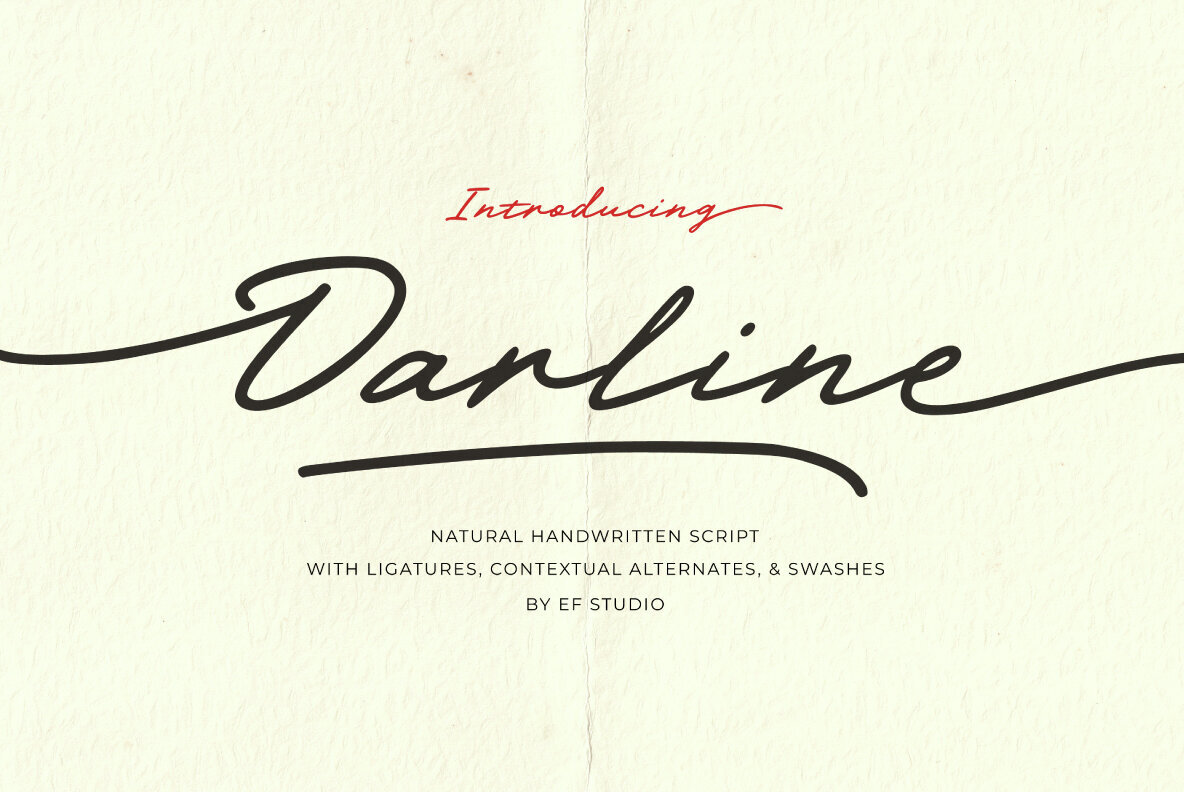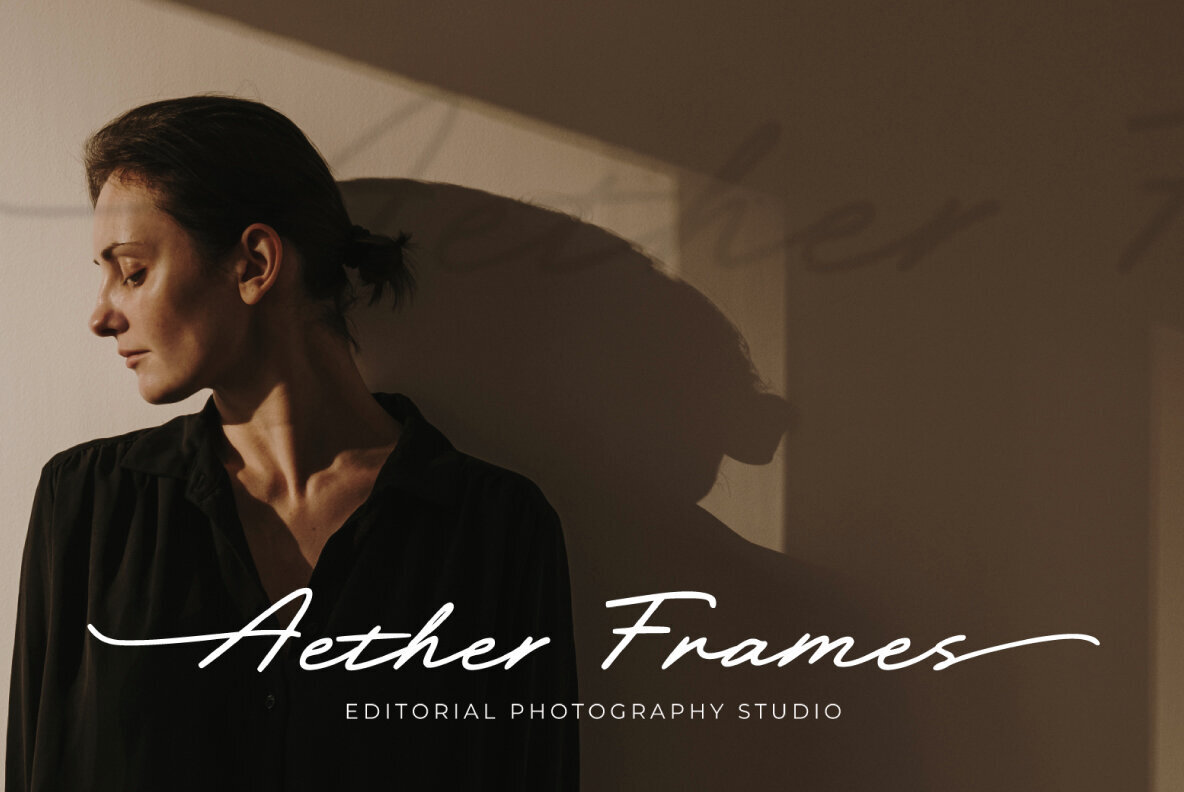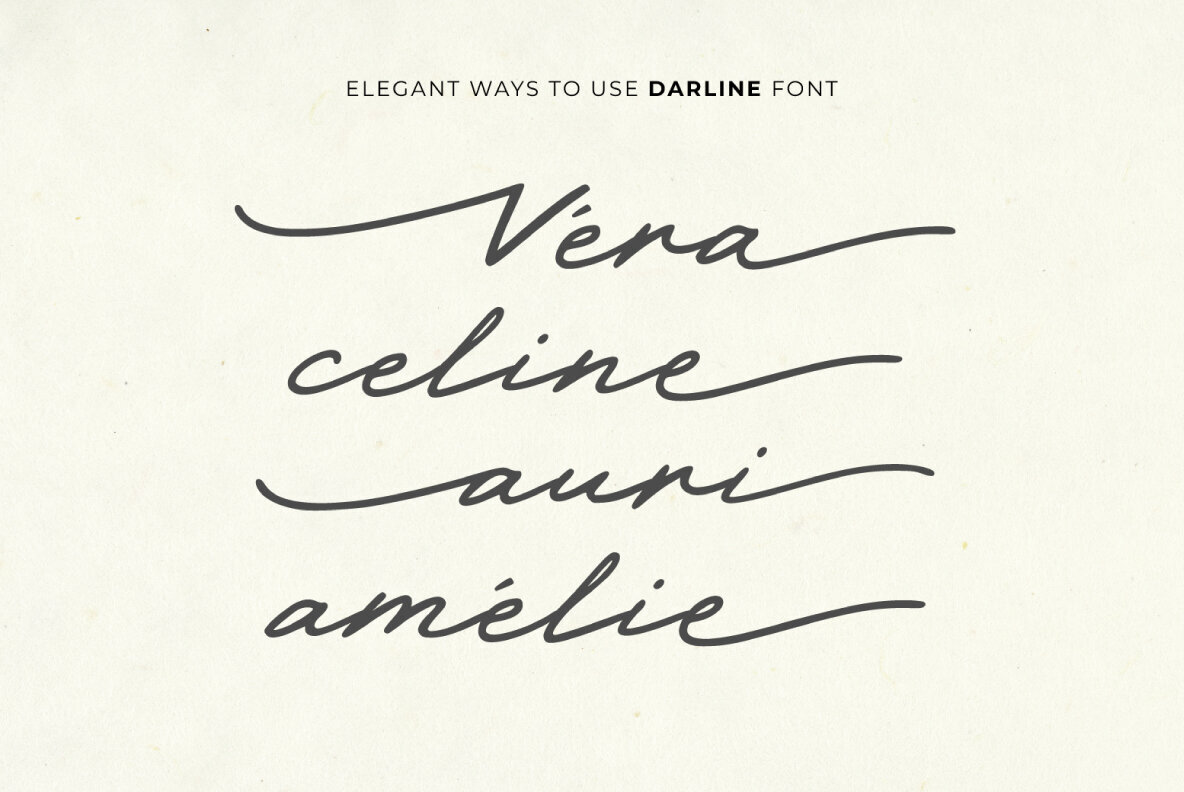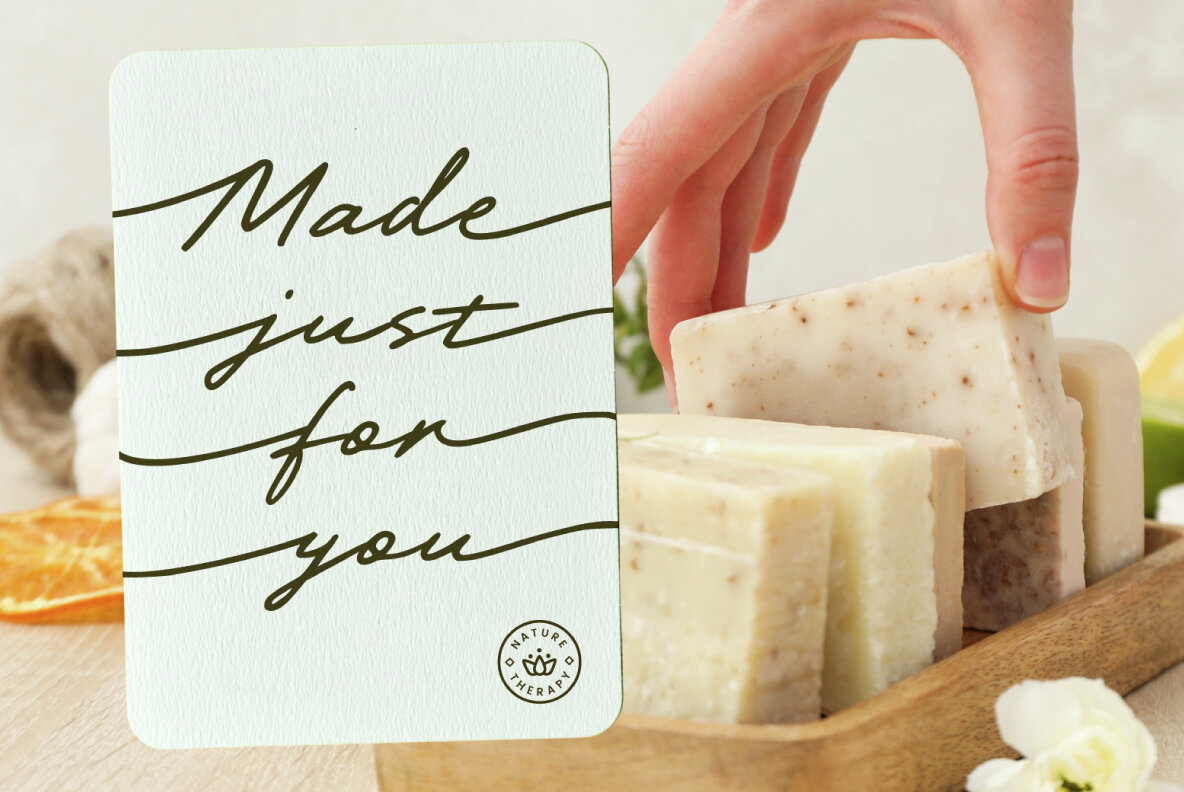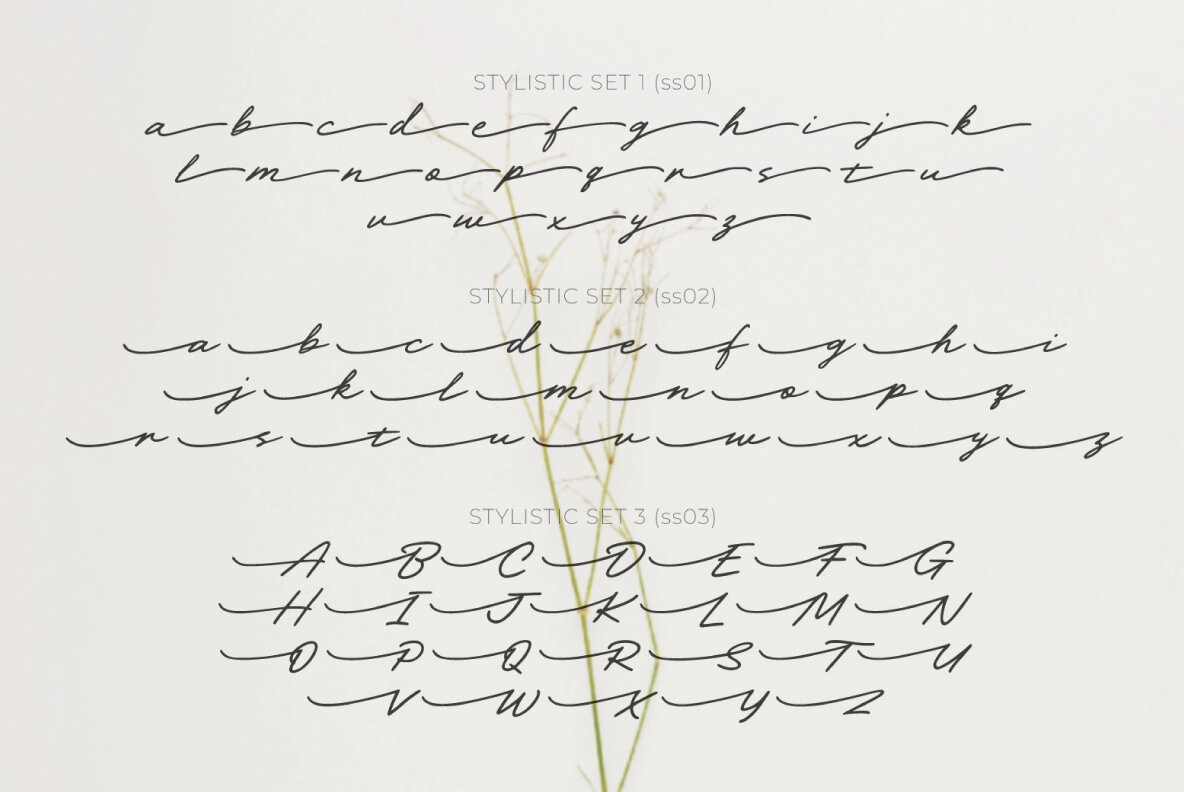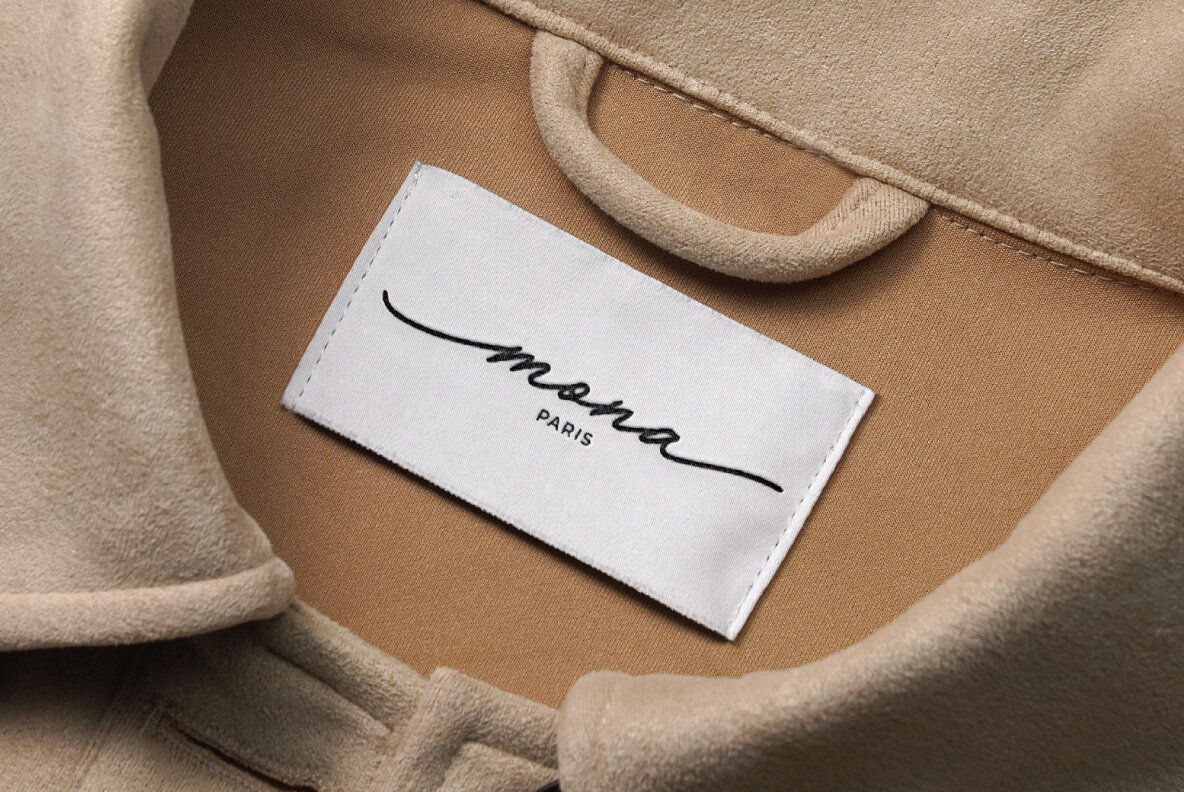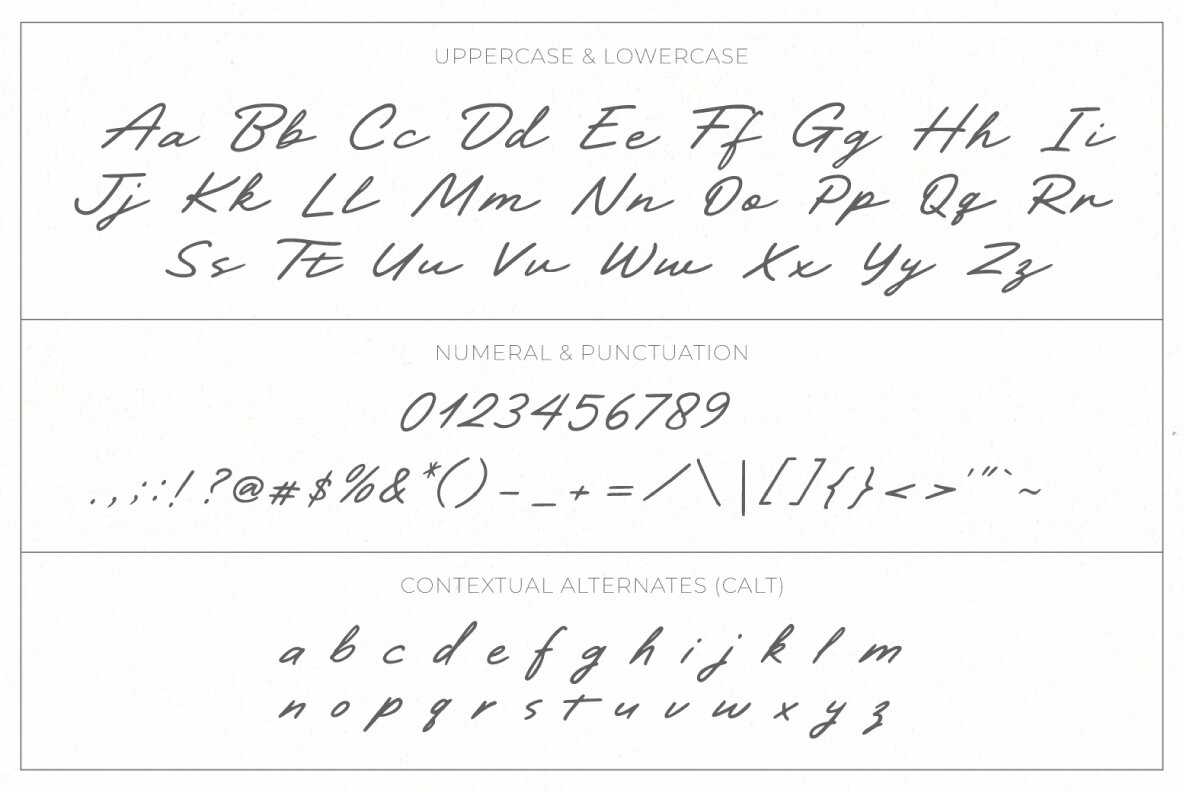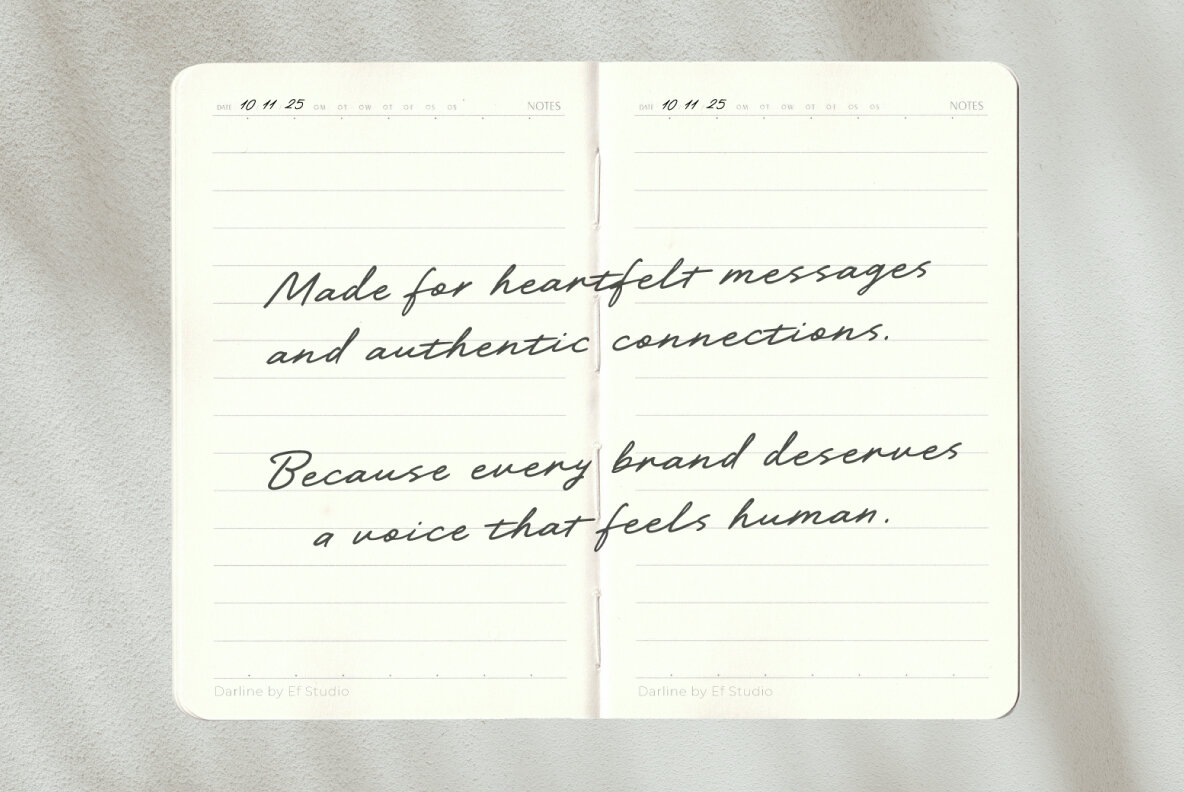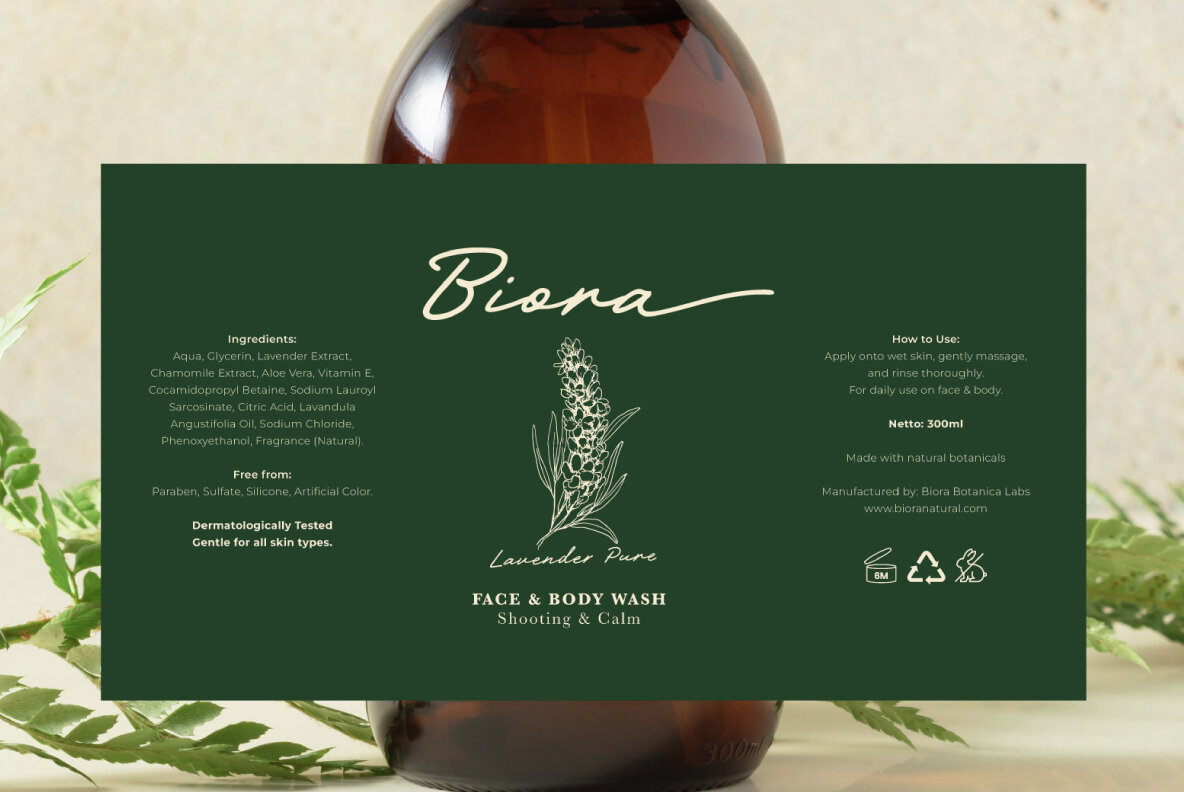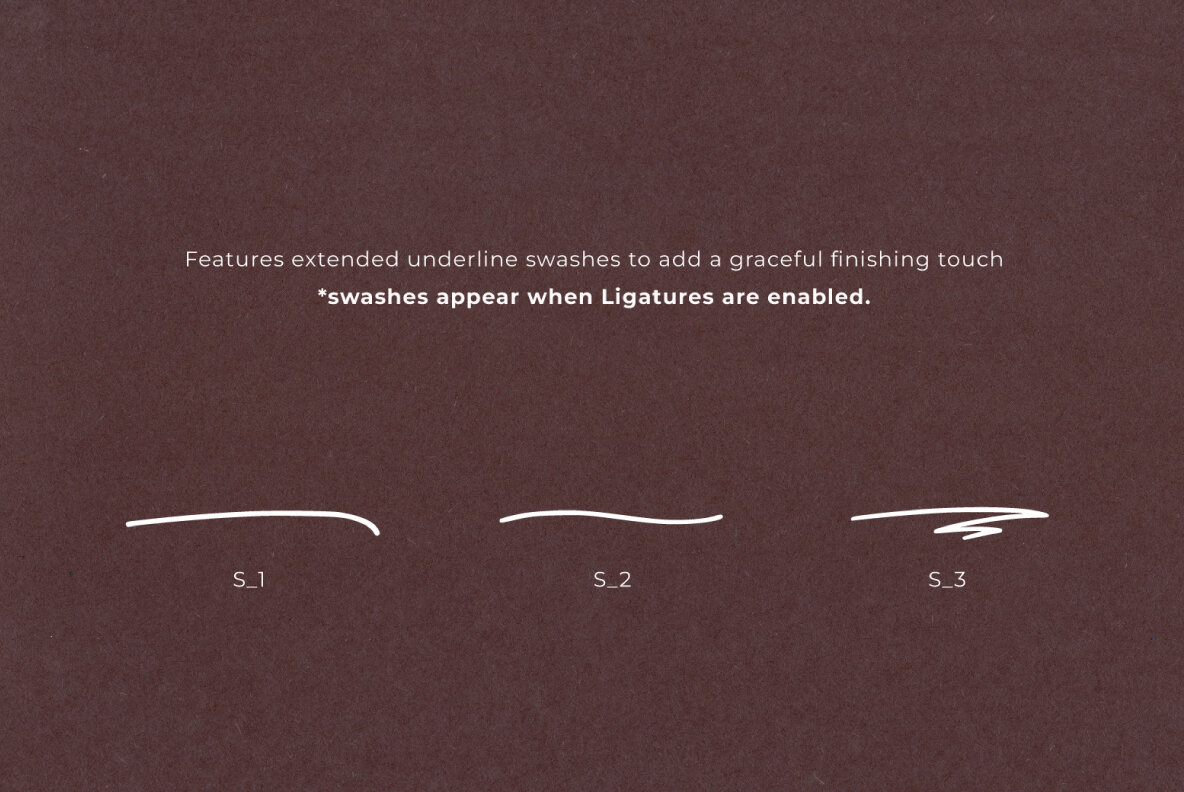
Darline Font
Darline
The Darline font encapsulates the warm, personal touch of natural handwriting, perfect for a variety of projects, from branding and wedding invitations to packaging and inspirational quotes. Its smooth curves and gentle strokes lend authenticity to every design it graces, ensuring a perfect fit for any project requiring a genuine, human element. Featuring carefully crafted ligatures, contextual alternates, and swashes, Darline not only flows elegantly but adjusts to create a seamless handwritten look. The contextual alternates feature, in particular, dynamically enhances the realism of each word by refining the end strokes for a more cohesive appearance. Features:Darline: Elegantly Handwritten Script Font